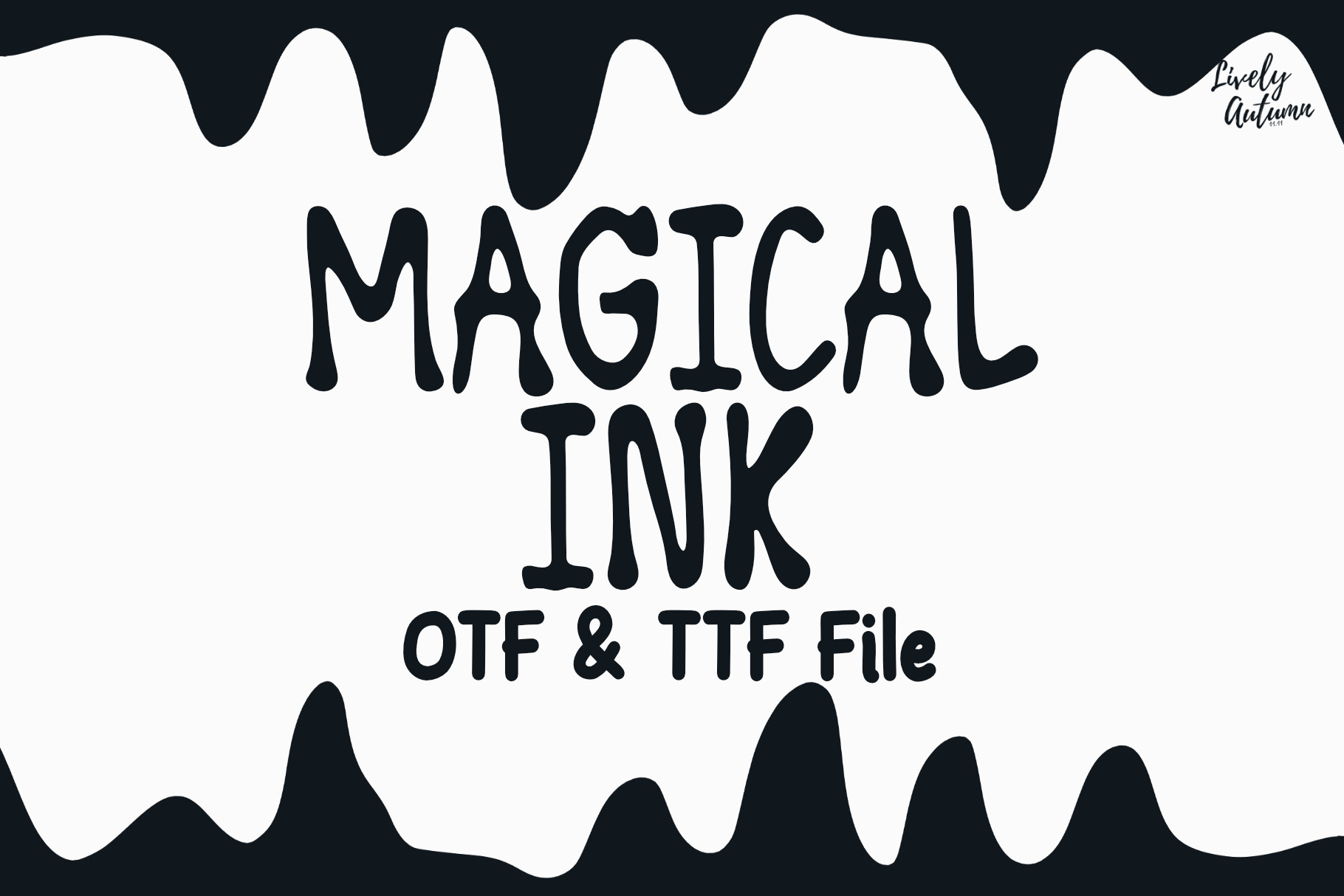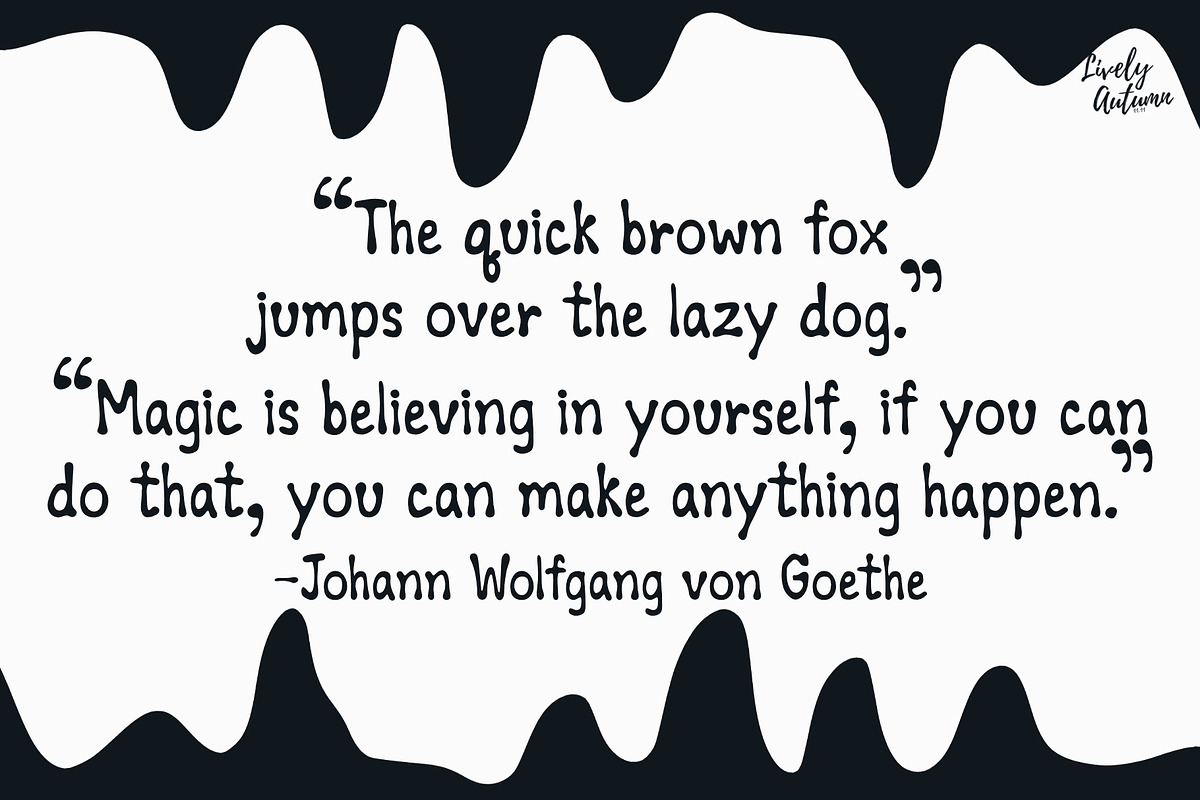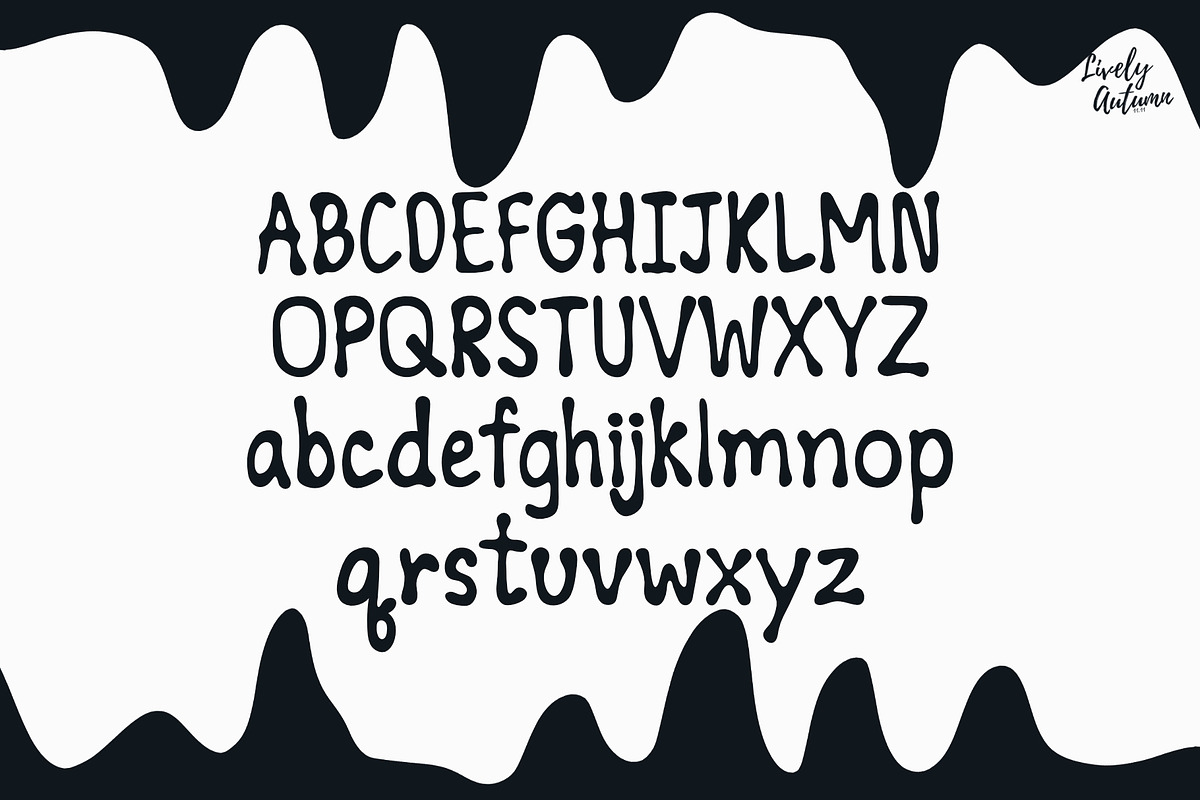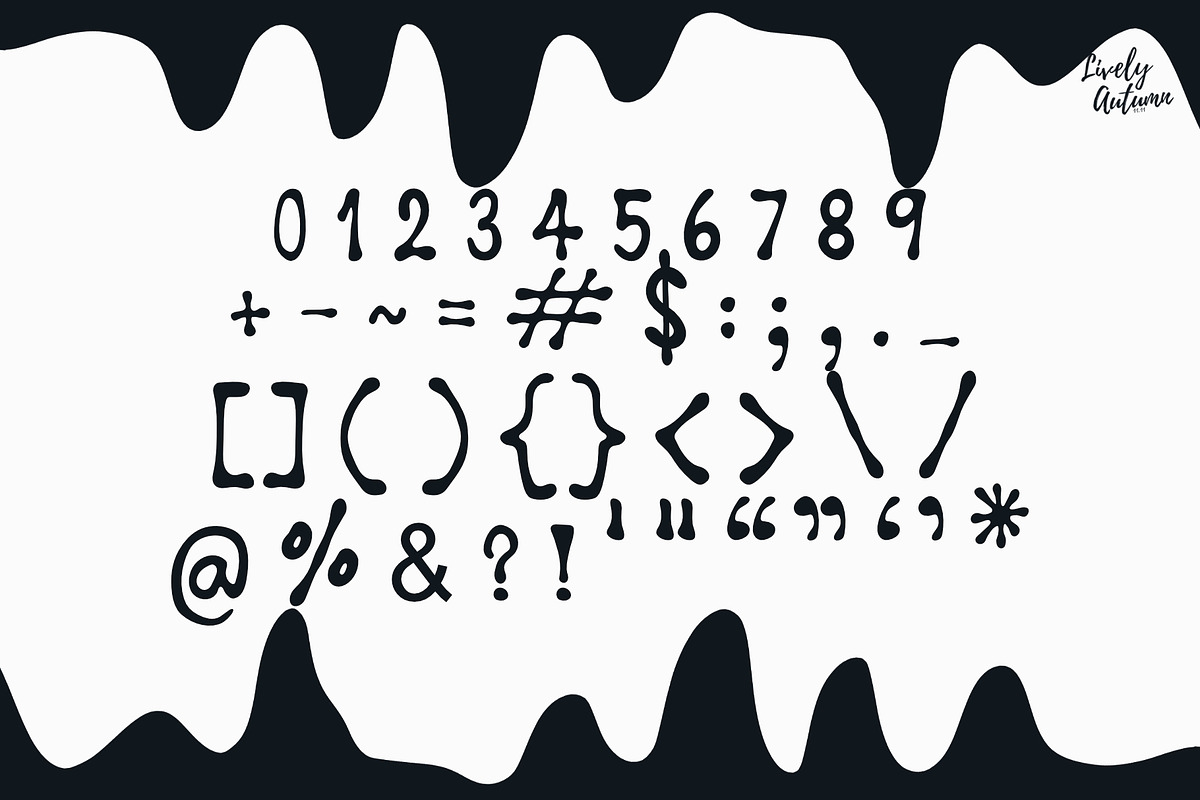
Magical Ink | handwriting font
Magical Ink Font is a sans serif handwritten font that writes with ink. Perfect for your Halloween theme project, personal projects, and various projects. From invitations to posters, social media graphics, journals, and much more.
- Font includes: uppercase, lowercase, numbers, and punctuation.